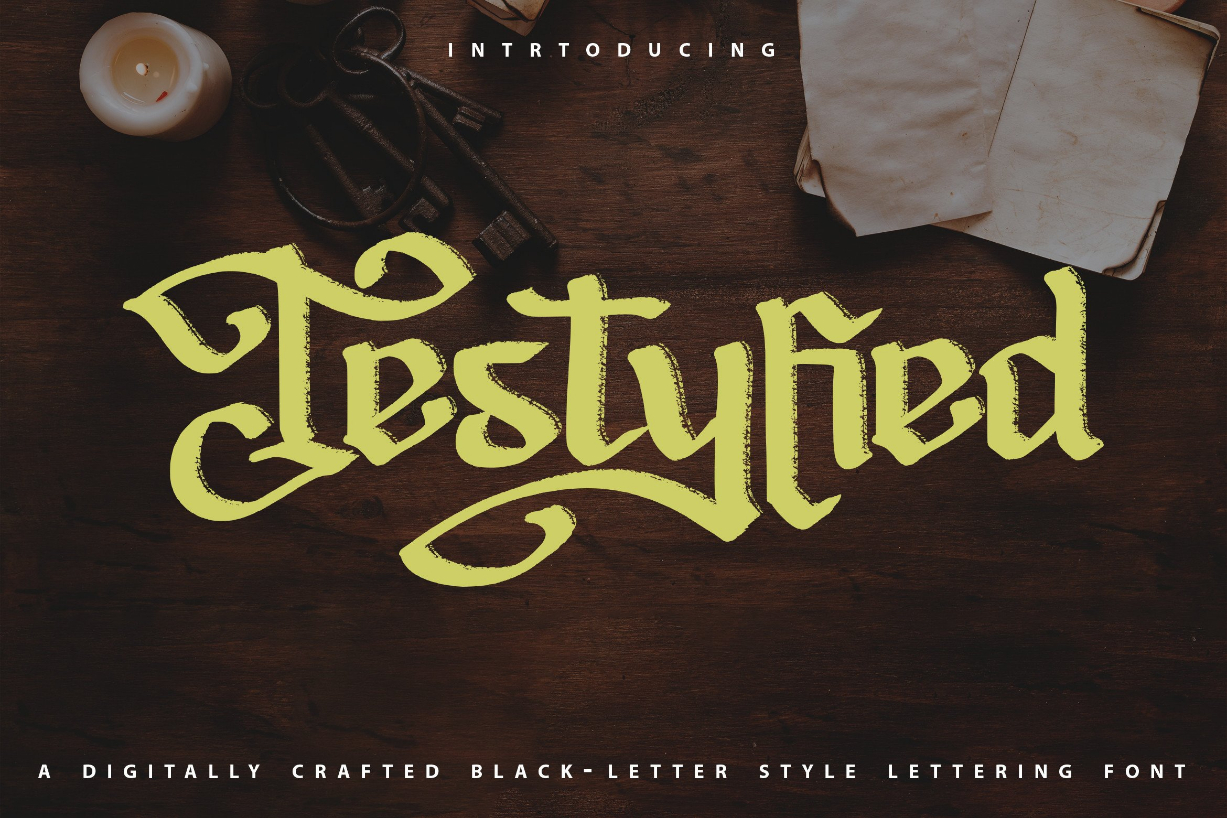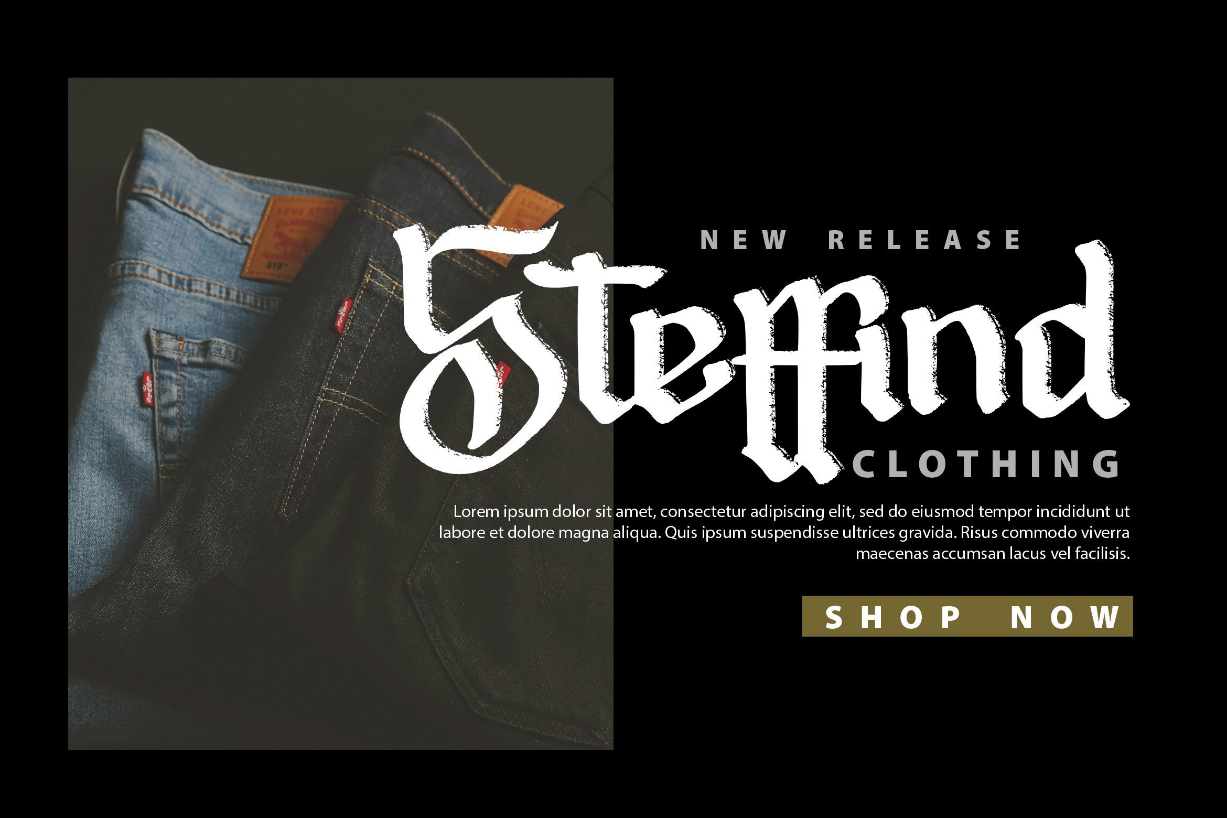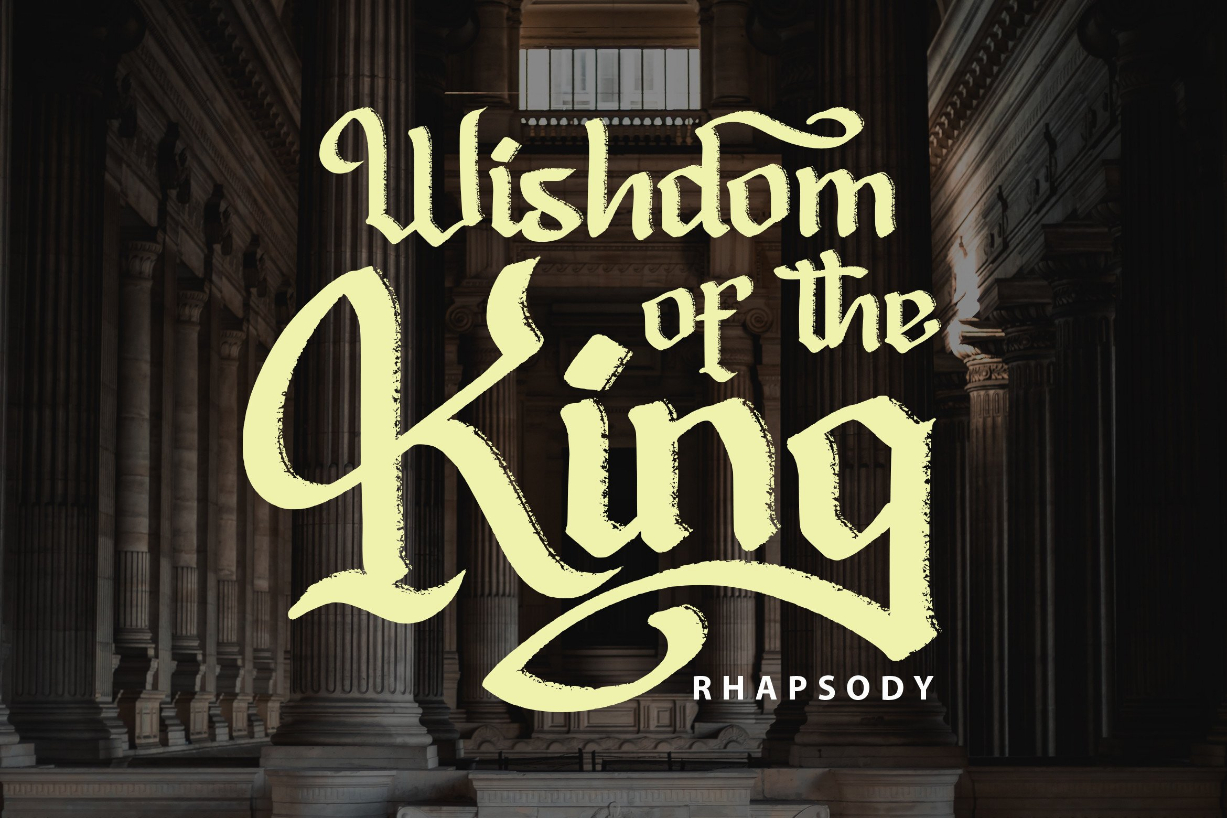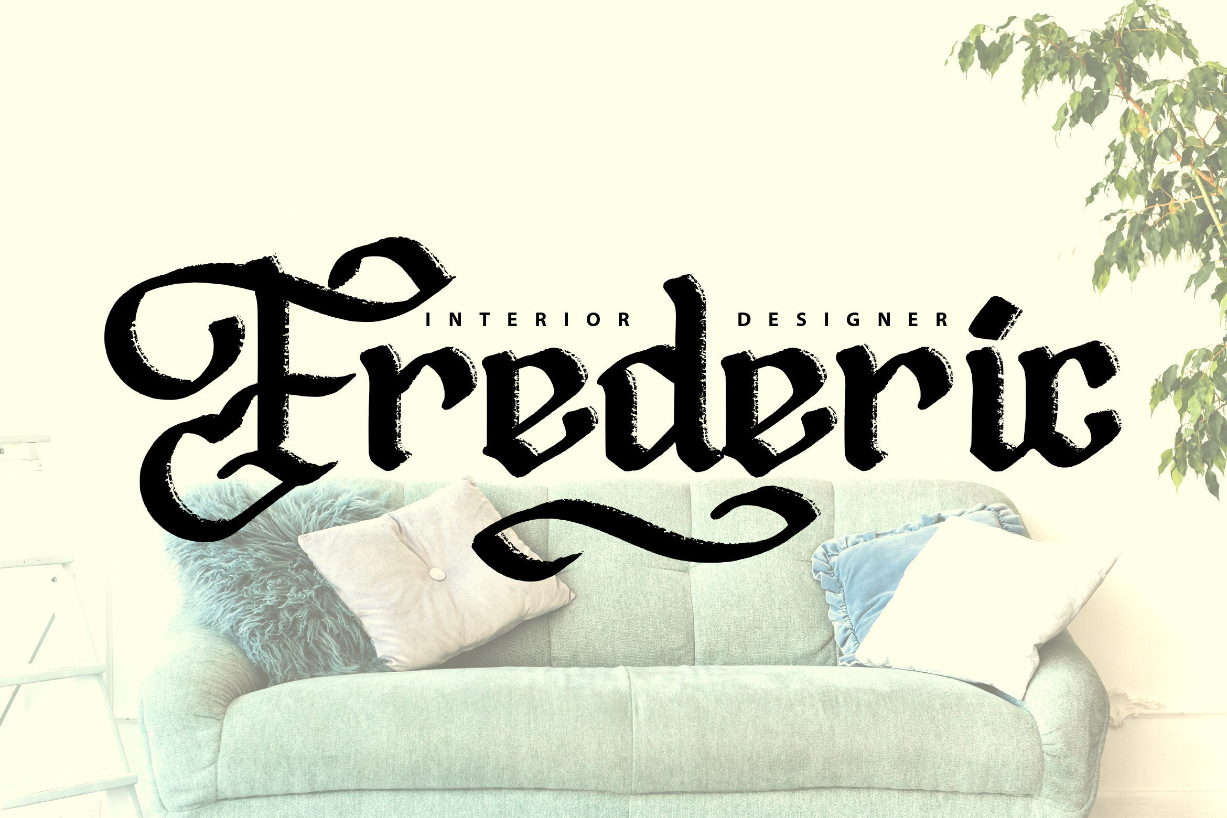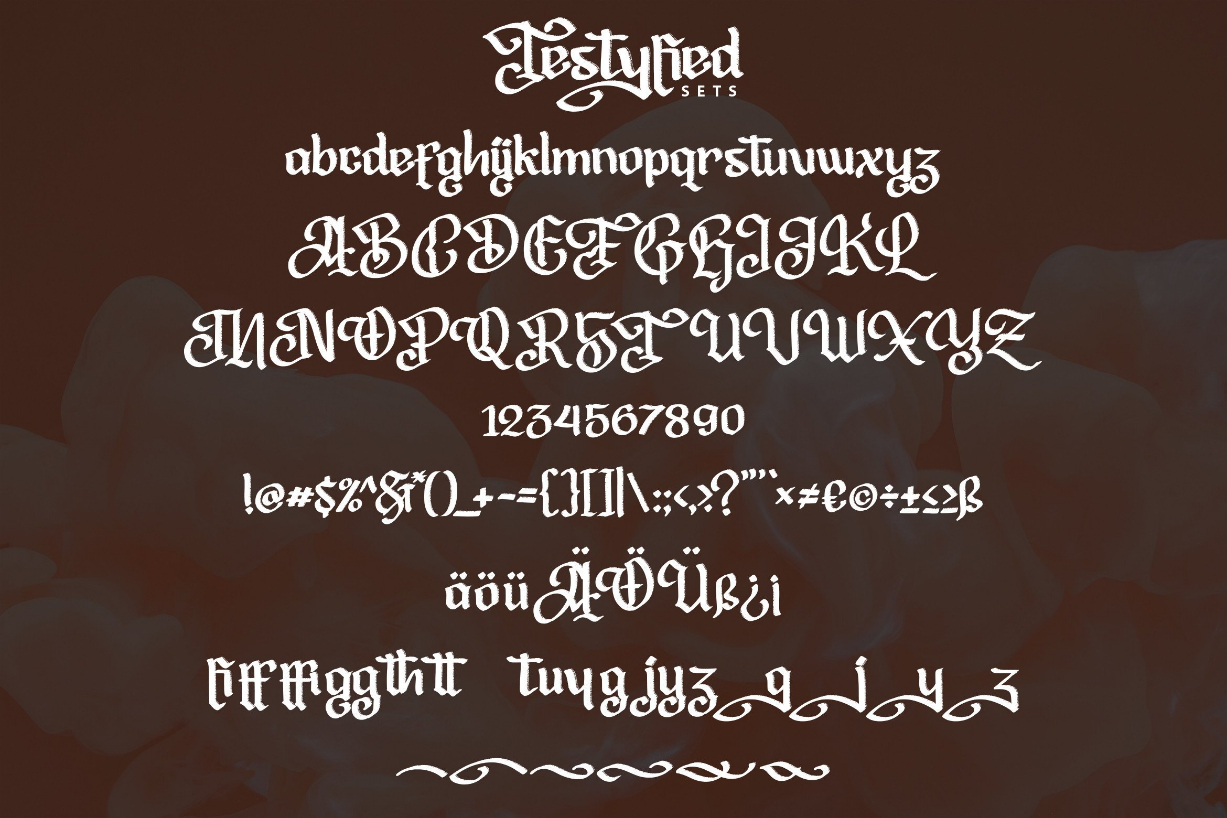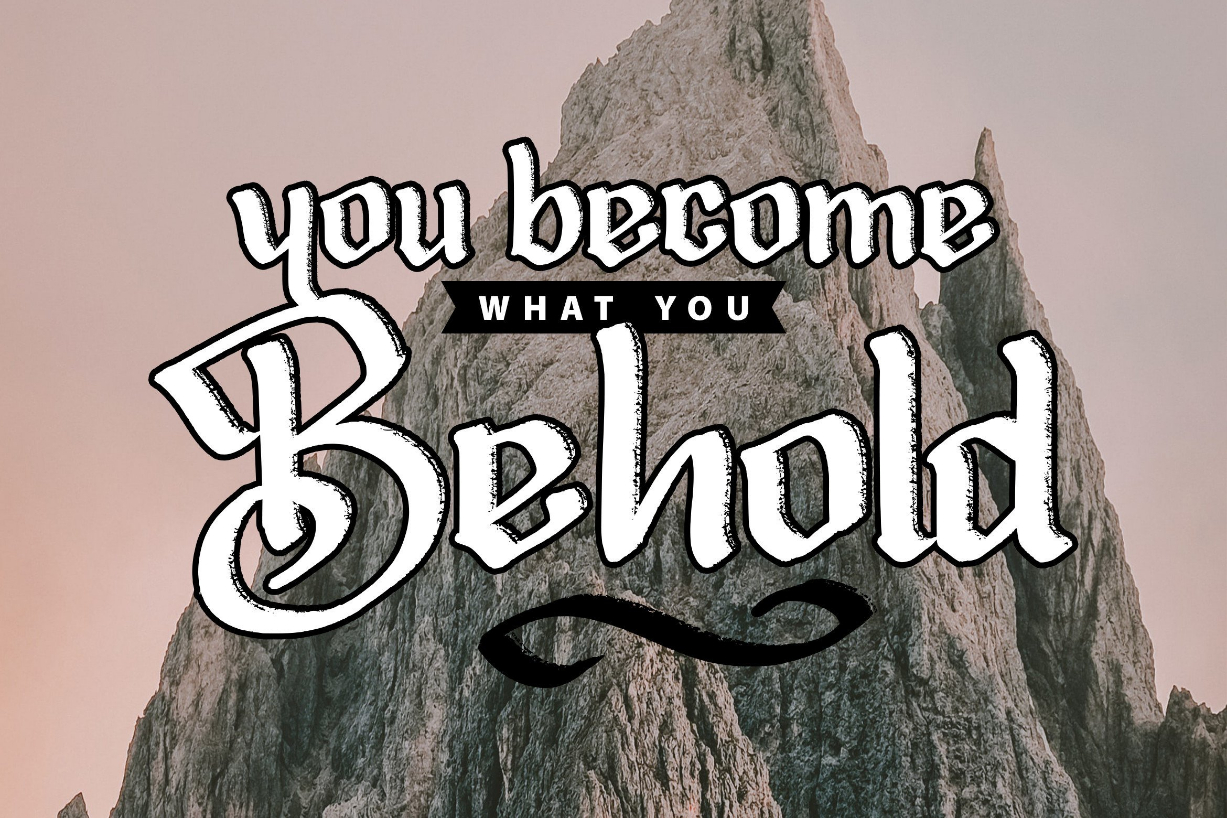
Testyfied Font
About Testyfied Font
Testyfied is a modern and incredibly cool blackletter font. Bold and gorgeous, this unique typeface is perfect for creating one-of-a-kind designs.